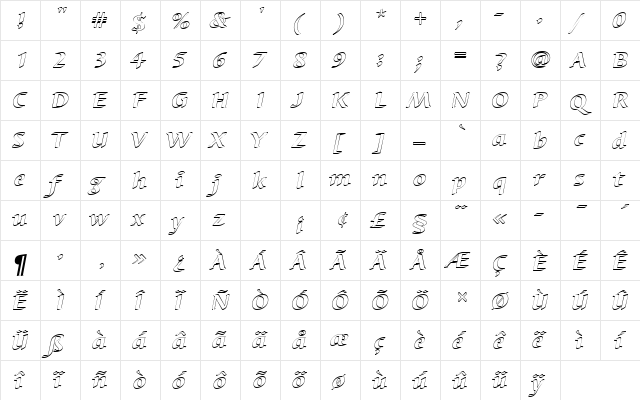
BarbedorTHeaItaOu1 Regular
Design Context for BarbedorTHeaItaOu1 Typeface
BarbedorTHeaItaOu1 offers clean, dependable letterforms without strong stylistic allegiance, making it a practical choice for designers who need flexibility.